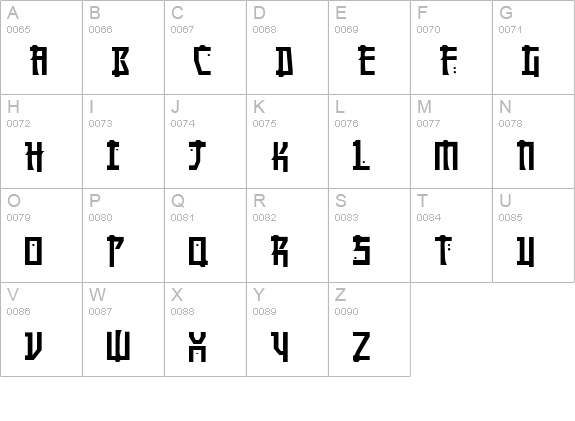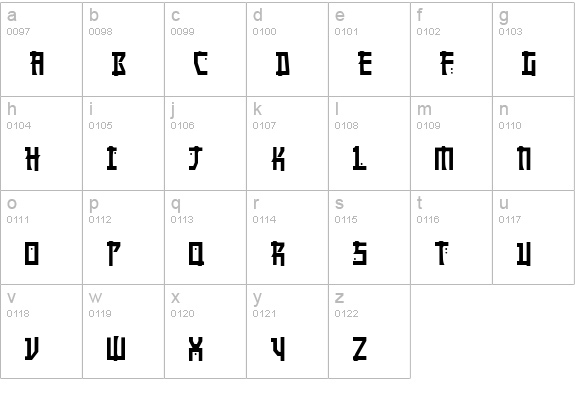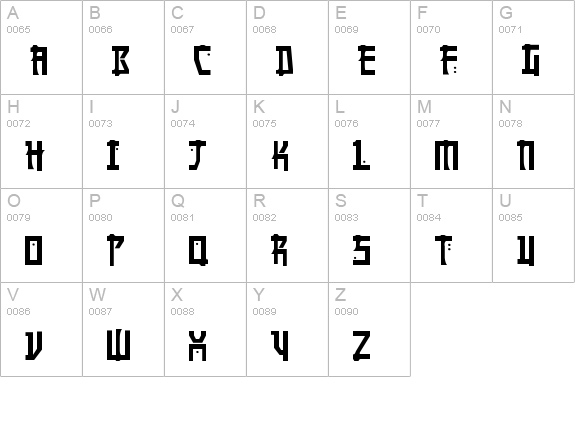
Manga Normal Font Details
Manga Normal is the standard, neutral variant in the Manga typeface family \xE2\x80\x94 well suited to general body text, paragraphs, and standard typographic work.
Manga Normal font is a stunning typeface that captures the essence of Japanese manga and brings it to life on the digital canvas. With its bold and dynamic letterforms, this font is perfect for capturing the attention of manga enthusiasts, comic book lovers, and graphic designers alike. Designed with meticulous attention to detail, Manga Normal font strikes the perfect balance between readability and artistic flair. Each letter is carefully crafted to evoke the energetic and expressive nature of manga, making it the ideal choice for titles, headlines, and any text that needs to make a bold statement. What makes Manga Normal font even more appealing is that it is freely available to download at FontsMarket.com. This means that you can bring the captivating world of manga to your designs without any cost. Whether you're a professional designer looking to add a touch of authenticity to your work or a manga fan wanting to create your own manga-inspired projects, this font is the perfect tool to unleash your creativity. With its extensive character set, Manga Normal font supports multiple languages, allowing you to convey your message across different cultures and regions. Its versatility makes it suitable for a wide range of projects, from branding and advertising to posters, packaging, and more. Download the Manga Normal font from FontsMarket.com today and embark on a journey into the mesmerizing world of manga. Let your designs come to life with the power and vibrancy of this captivating typeface, and watch as your creations captivate and enthrall audiences. With Manga Normal font, your imagination knows no bounds.